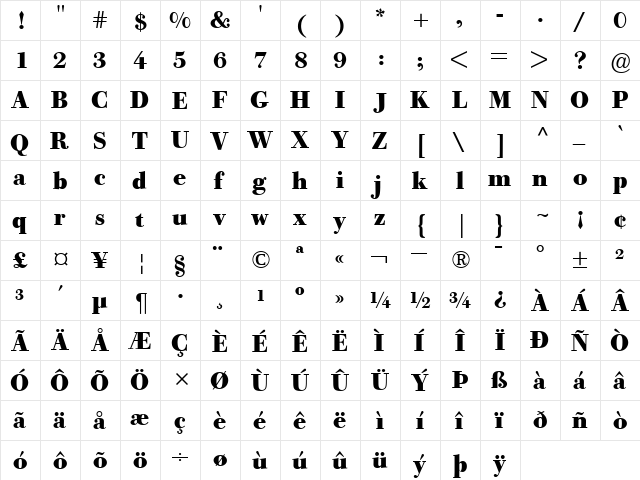
BodoniOldFaceBE Bold Font Preview
BodoniOldFaceBE Bold
BodoniOldFaceBE Bold Font Details
Design Context for BodoniOldFaceBE Typeface
BodoniOldFaceBE takes a measured approach to typography — its balanced proportions and neutral character make it a reliable workhorse for both digital and print work. Its bold stroke weight gives it real presence on the page.